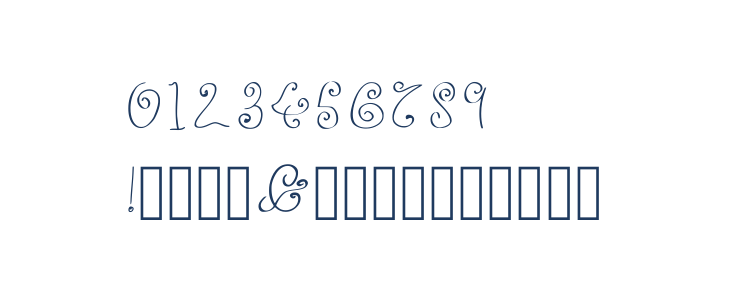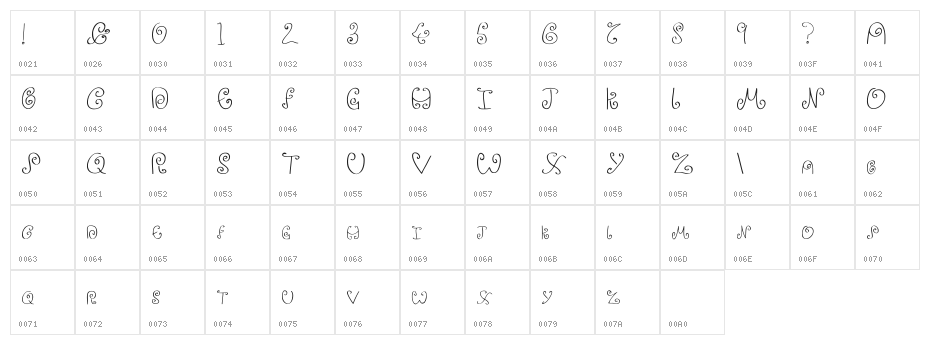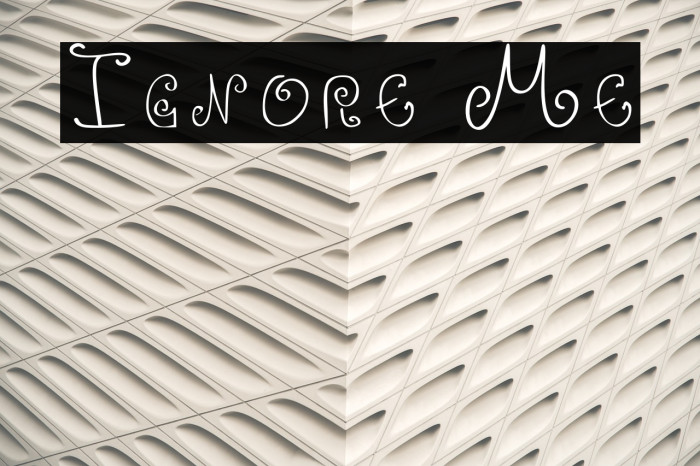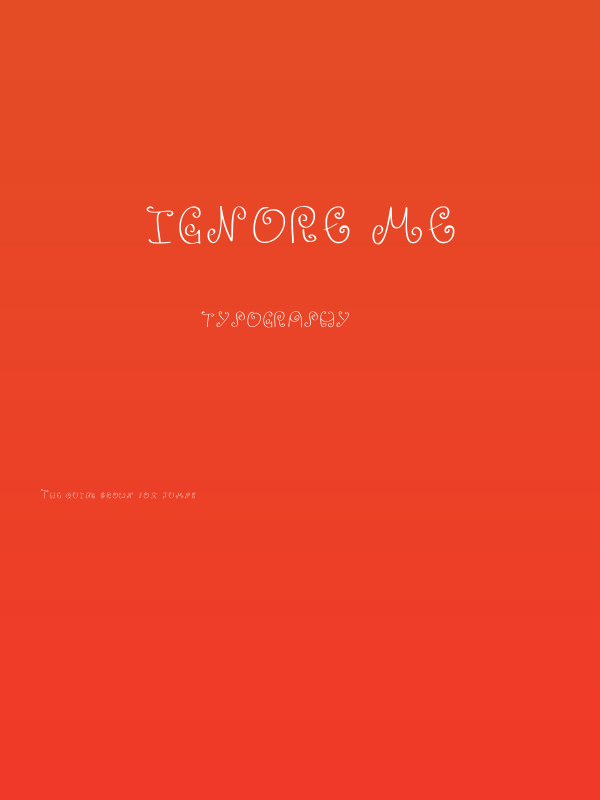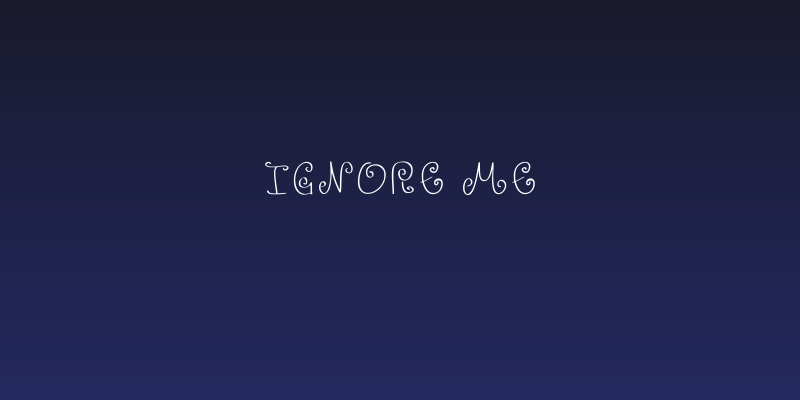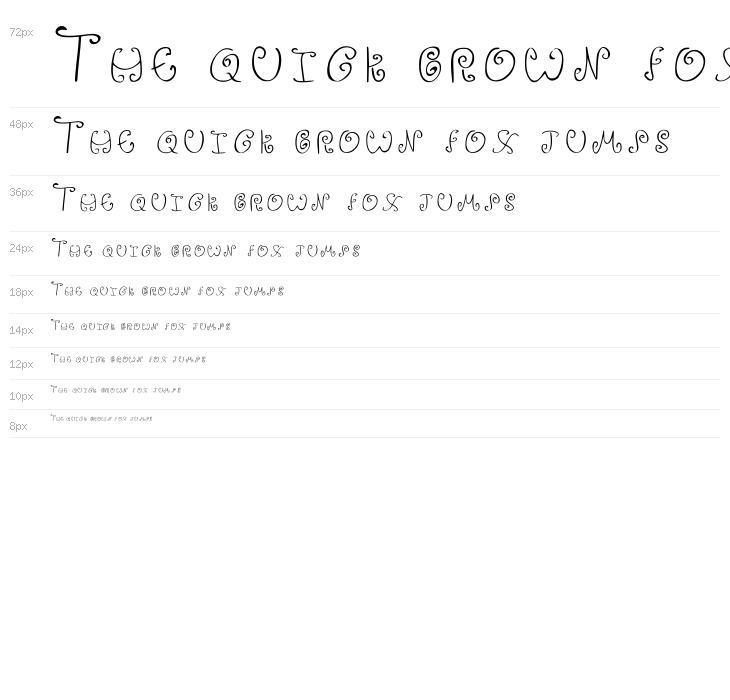
Ignore Me Font
Ignore Me Description
This font features a whimsical and playful design, characterized by its curly and decorative elements. Each letter is adorned with unique swirls and loops, giving it a lively and artistic appearance. The font maintains a consistent stroke width, which adds to its charm and readability. The numbers and special characters follow the same decorative style, ensuring a cohesive look across all elements. This font is perfect for projects that require a touch of creativity and fun, making it ideal for invitations, greeting cards, and playful branding.
| Proposed Projects | Ideal for invitations, greeting cards, playful branding, and creative projects. |